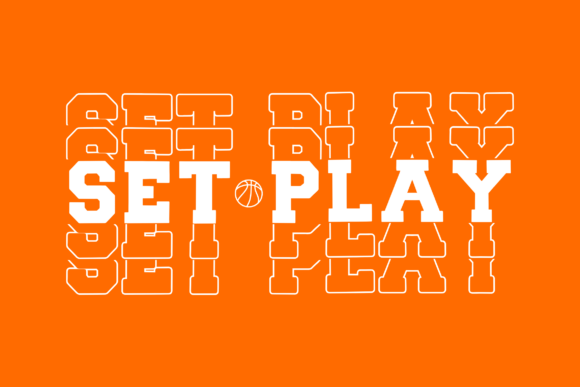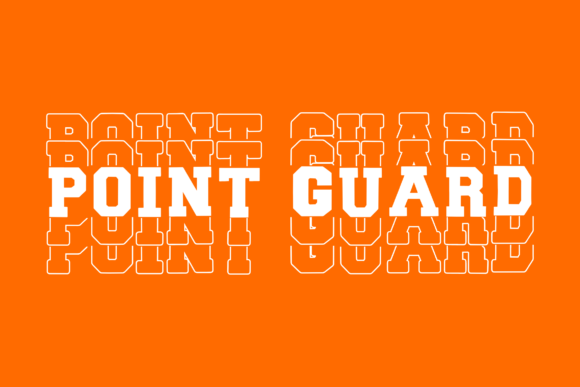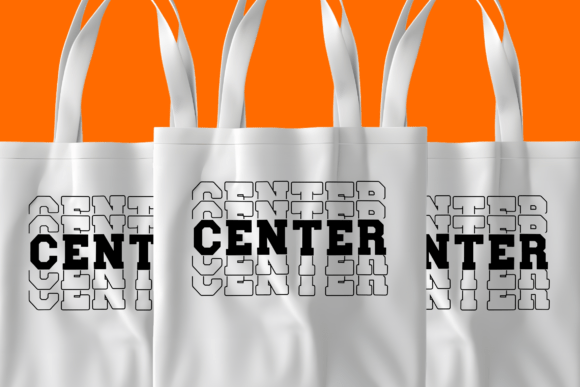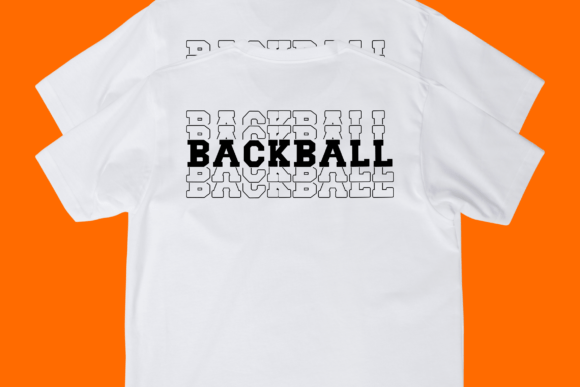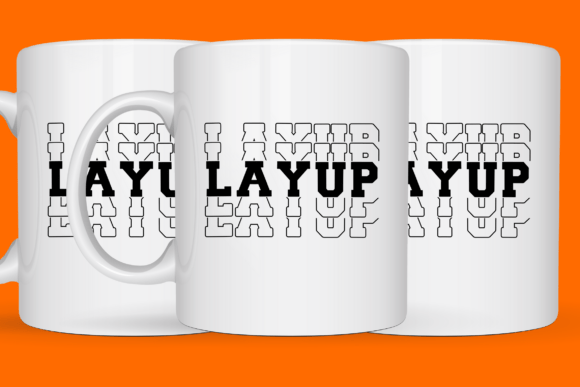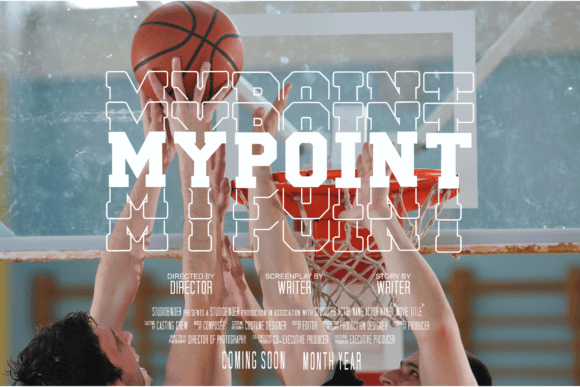
Introduction to Scholar Stacked Font
Who hasn’t been there – standing in a crowded stadium, cheering on their favorite team with a sea of identical t-shirts and banners surrounding them? It’s moments like these that make you realize the power of a well-designed font in bringing people together. And that’s exactly what the Scholar Stacked Font does – it captures the essence of school pride, sports intensity, and classic collegiate style in a fresh and modern typographic format.
As a designer, you’re always on the lookout for unique and high-quality design resources to elevate your creative projects. That’s why we’re excited to introduce you to the Scholar Stacked Font – a bold and structured stacked varsity font that’s perfect for projects that require a strong, classic, and fun feel. With its all-caps letters stacked in a vertical style, this font is sure to turn heads on any project – from team hoodies to YouTube gaming thumbnails.
Key Features of Scholar Stacked Font
- Unique stacked font style with a transparent background, perfect for layered designs.
- Available in 5 different font sizes, ranging from 12 to 72 points, for flexibility in your design.
- Designed at a high resolution of 300 DPI, ensuring crisp and clear text in print and digital formats.
- Perfect for academic and educational projects, as well as any other design where a stacked font style is desired.
Honest Review: Scholar Stacked Font
I recently had the opportunity to try out the Scholar Stacked Font, and I must say it’s been a great addition to my design resources. One of the things that stood out to me was the high quality of the font, with crisp lines and a clear, easy-to-read design.
One of the things that I love about this font is its versatility – it would be perfect for a creative project that needs a touch of sophistication, but without being too over-the-top. The transparent background is also a huge plus, making it easy to layer with other design elements.
- Versatile for a range of creative projects
- May not be suitable for very simple or straightforward projects
- Limited customization options
Overall, I’m really impressed with the Scholar Stacked Font – it’s a great design resource that can elevate a creative project to the next level. While it may have a few limitations, I think it’s definitely worth checking out if you’re looking for a high-quality font with a unique touch.
Scholar Stacked Font
Use the transparent background feature to create a seamless design. Experiment with different font sizes and styles to create a unique look. Combine the Scholar Stacked Font with other design elements to create a visually appealing design.
The Scholar Stacked Font is perfect for academic and educational projects, as well as creative and design-related projects. Use it to create certificates, awards, and other documents that require a touch of sophistication.
Does the Scholar Stacked Font have a transparent background?
Yes, the Scholar Stacked Font is designed with a transparent background, making it easy to overlay on top of images or other design elements. This feature allows for a seamless and professional look in your creative projects.